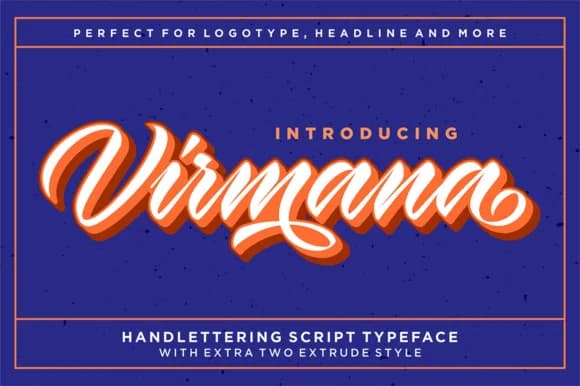
Virmana by Solidtype is a retro calligraphy script with bold, expressive brush strokes that command attention in any design context. The font arrives in three coordinating styles, Virmana Script alongside two distinct Extrude variations, allowing designers to layer multiple versions for dimensional, richly textured effects that create visual depth and personality in lettering work. This versatile typeface excels across numerous applications where hand-lettered charm and distinctive character matter most. Wedding invitation suites gain timeless elegance and personality from Virmana's confident brush strokes, while boutique packaging projects for artisanal chocolates, luxury cosmetics, and natural skincare brands leverage its bold presence to differentiate products on retail shelves and attract discerning customers. Restaurant menus, wine bottle labels, and craft beverage branding benefit from the font's balanced combination of sophistication and approachability, and DIY vintage signage projects for events, retail shops, or home dΓ©cor rely on its substantial weight to create eye-catching focal points. The interplay between the Script and Extrude styles opens creative layering possibilities for designers working on print collateral, digital branding initiatives, and projects requiring visual impact without sacrificing refinement or legibility. Discover how Virmana's retro aesthetic and multi-style capability can enhance your next creative project on Creative Fabrica.
- Elegant, Flowing, Virmana Script
Virmana Font is a script font that shines as a display or heading face. Pair it with a clean sans-serif or serif font for body text β the contrast creates a clear hierarchy while the two styles stay balanced and easy to read.